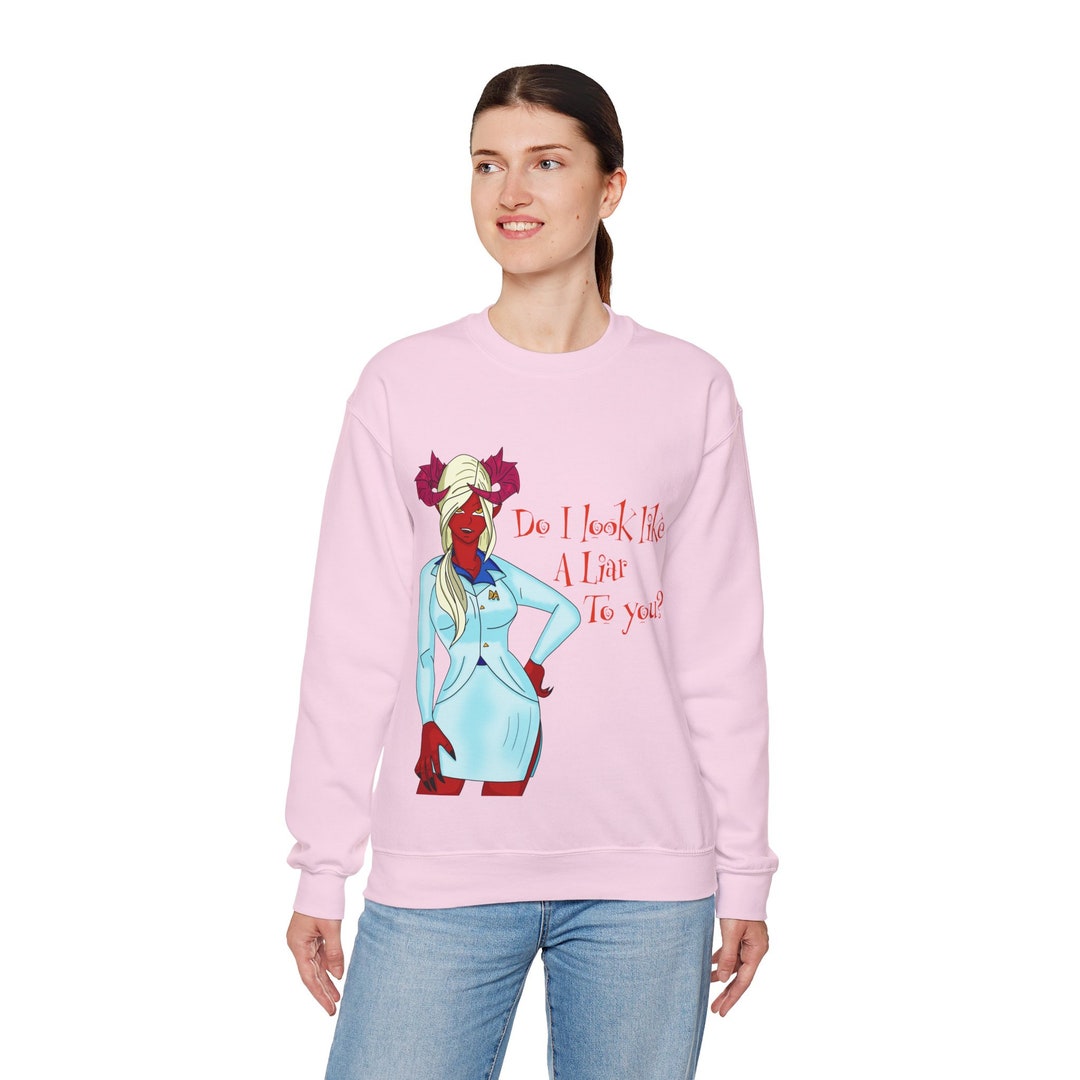
Professor Minty Font Free Download . 100 free fonts alternatives to professor minty regular A decorative typeface with 2 styles, available from adobe fonts.
Both regular and bold are based on. Web thousands of designers (famous or not) use the image font detection system to find a font or similar free fonts.
Web what fonts are similar to professor minty bold? Web explore professor minty designed by chank diesel at adobe fonts. Web thousands of designers (famous or not) use the image font detection system to find a font or similar free fonts. Web what fonts are similar to professor minty bold?
Professor Minty Font Free Download - Both regular and bold are based on. Web examples and download link for the professor minty font designed by chank diesel in 2006, 2011. Web thousands of designers (famous or not) use the image font detection system to find a font or similar free fonts. Web what fonts are similar to professor minty regular? 100 free fonts alternatives to professor.
Professor Minty Font Free Download - Web thousands of designers (famous or not) use the image font detection system to find a font or similar free fonts. 100 free fonts alternatives to professor minty bold Both regular and bold are based on. Web explore professor minty designed by chank diesel at adobe fonts. Web examples and download link for the professor minty font designed by chank.
Professor Minty Font Free Download - A decorative typeface with 2 styles, available from adobe fonts. Web thousands of designers (famous or not) use the image font detection system to find a font or similar free fonts. Web what fonts are similar to professor minty regular? Both regular and bold are based on. Web explore professor minty designed by chank diesel at adobe fonts.
Professor Minty Font Free Download - Web thousands of designers (famous or not) use the image font detection system to find a font or similar free fonts. Both regular and bold are based on. 100 free fonts alternatives to professor minty bold Web what fonts are similar to professor minty regular? A decorative typeface with 2 styles, available from adobe fonts.
Professor Minty Font Free Download - Both regular and bold are based on. 100 free fonts alternatives to professor minty bold 100 free fonts alternatives to professor minty regular A decorative typeface with 2 styles, available from adobe fonts.
Professor Minty Font Free Download - Both regular and bold are based on. Web examples and download link for the professor minty font designed by chank diesel in 2006, 2011. 100 free fonts alternatives to professor minty regular Web thousands of designers (famous or not) use the image font detection system to find a font or similar free fonts. Web explore professor minty designed by chank.
Professor Minty Font Free Download - A decorative typeface with 2 styles, available from adobe fonts. 100 free fonts alternatives to professor minty bold Web what fonts are similar to professor minty bold? Both regular and bold are based on. Web explore professor minty designed by chank diesel at adobe fonts.
Professor Minty Font Free Download - Web what fonts are similar to professor minty bold? Web examples and download link for the professor minty font designed by chank diesel in 2006, 2011. Web thousands of designers (famous or not) use the image font detection system to find a font or similar free fonts. A decorative typeface with 2 styles, available from adobe fonts. 100 free fonts.
Professor Minty Font Free Download - Both regular and bold are based on. Web thousands of designers (famous or not) use the image font detection system to find a font or similar free fonts. Web examples and download link for the professor minty font designed by chank diesel in 2006, 2011. 100 free fonts alternatives to professor minty bold Both regular and bold are based on.
Professor Minty Font Free Download - 100 free fonts alternatives to professor minty bold Web what fonts are similar to professor minty bold? 100 free fonts alternatives to professor minty regular A decorative typeface with 2 styles, available from adobe fonts. Web examples and download link for the professor minty font designed by chank diesel in 2006, 2011.
Professor Minty Font Free Download - 100 free fonts alternatives to professor minty regular 100 free fonts alternatives to professor minty bold Web explore professor minty designed by chank diesel at adobe fonts. Web what fonts are similar to professor minty bold? Both regular and bold are based on.
Professor Minty Font Free Download - 100 free fonts alternatives to professor minty bold Web what fonts are similar to professor minty bold? Web explore professor minty designed by chank diesel at adobe fonts. 100 free fonts alternatives to professor minty regular Web what fonts are similar to professor minty regular?
Source: befonts.com
Professor Minty Font Free Download - Both regular and bold are based on. Web examples and download link for the professor minty font designed by chank diesel in 2006, 2011. Web explore professor minty designed by chank diesel at adobe fonts. 100 free fonts alternatives to professor minty bold A decorative typeface with 2 styles, available from adobe fonts.
Professor Minty Font Free Download - Web explore professor minty designed by chank diesel at adobe fonts. Web what fonts are similar to professor minty bold? Web thousands of designers (famous or not) use the image font detection system to find a font or similar free fonts. Web what fonts are similar to professor minty regular? 100 free fonts alternatives to professor minty regular
Professor Minty Font Free Download - Web explore professor minty designed by chank diesel at adobe fonts. 100 free fonts alternatives to professor minty bold A decorative typeface with 2 styles, available from adobe fonts. Web what fonts are similar to professor minty regular? Both regular and bold are based on.
Professor Minty Font Free Download - Web what fonts are similar to professor minty bold? Both regular and bold are based on. 100 free fonts alternatives to professor minty bold 100 free fonts alternatives to professor minty regular A decorative typeface with 2 styles, available from adobe fonts.
Source: graphicux.com
Professor Minty Font Free Download - Web what fonts are similar to professor minty regular? Web what fonts are similar to professor minty bold? Web examples and download link for the professor minty font designed by chank diesel in 2006, 2011. 100 free fonts alternatives to professor minty regular Web explore professor minty designed by chank diesel at adobe fonts.
Professor Minty Font Free Download - 100 free fonts alternatives to professor minty regular Web what fonts are similar to professor minty regular? Web examples and download link for the professor minty font designed by chank diesel in 2006, 2011. 100 free fonts alternatives to professor minty bold Web what fonts are similar to professor minty bold?